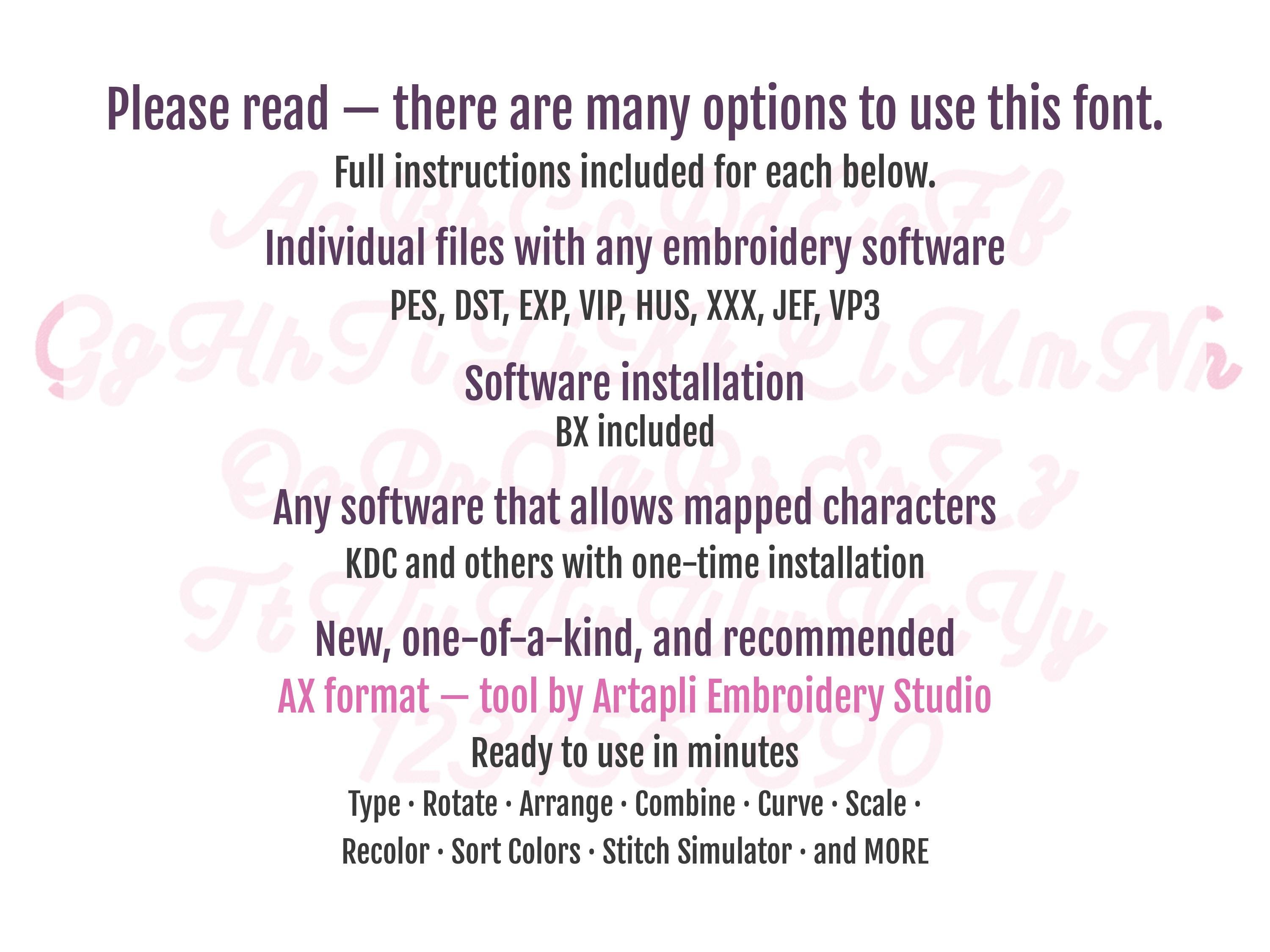
Fill stitch Oliver Font machine embroidery designs script font alphabet letters and numbers playful kids baby monogram in multiple sizes from 1 up to 2.2 inches, BX included
Whole alphabet A-Z uppercase and lowercase letters, and numbers.